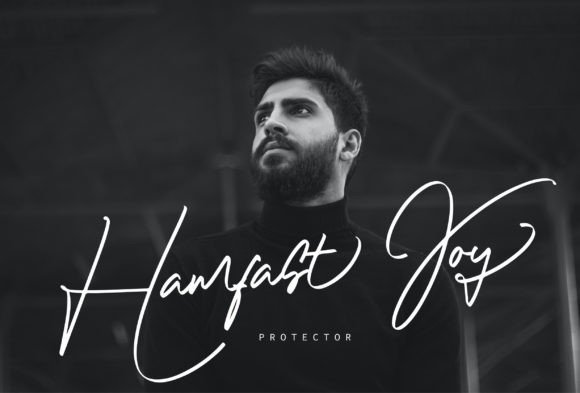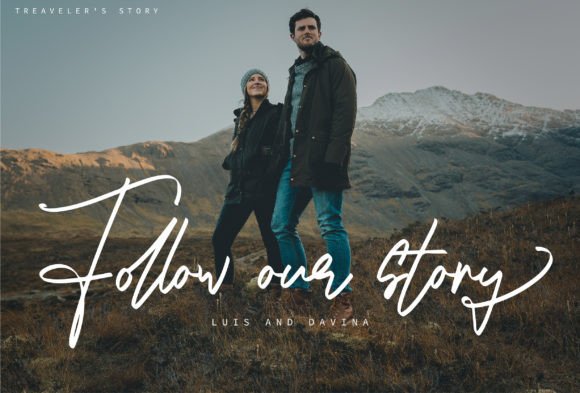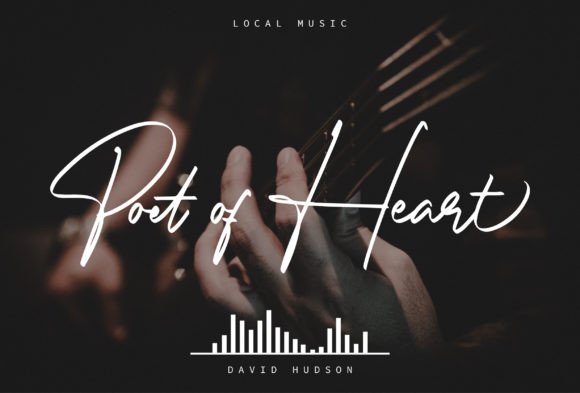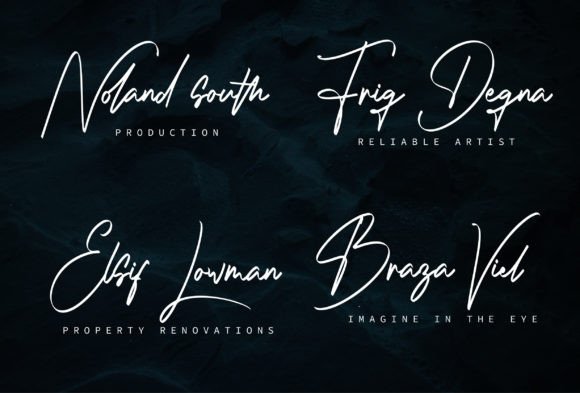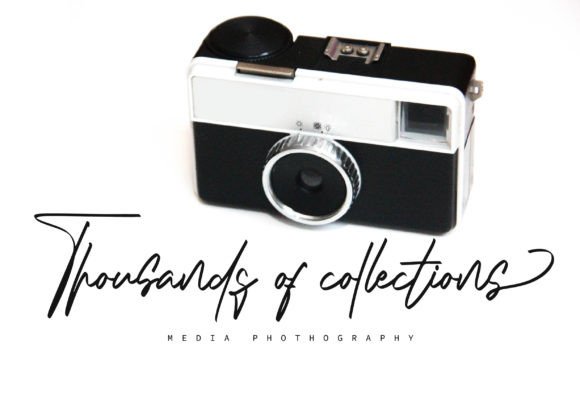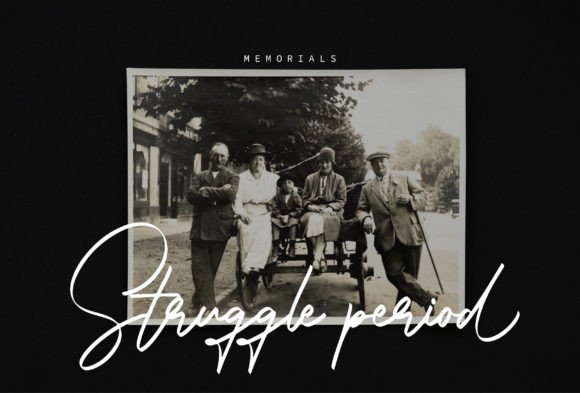
Introduction to Pictures Signature Font
Have you ever been scrolling through a beautifully designed magazine or a website, and suddenly, you’re stopped by a unique and captivating logo or title that makes you pause and take a closer look? That’s the power of a well-designed font, and today, we’re going to talk about one that’s sure to leave a lasting impression – the Pictures Signature Font.
This elegant and exclusive font is a treasure trove for designers looking to add a personal touch to their creative projects. With its steep, curved strokes and interconnected letters, the Pictures Signature Font is the perfect choice for brand names, name logos, magazines, posters, and other digital media that require a high-quality, transparent background design. Whether you’re working on a commercial project or a personal one, this font is sure to elevate your design to the next level.
And the best part? The Pictures Signature Font is PUA encoded, making it easy to access all glyphs and swashes effortlessly. So, what are you waiting for? Dive into the world of high-quality design with the Pictures Signature Font and take your creative projects to new heights!
Honest Review: Pictures Signature Font
I recently came across the Pictures Signature Font and was excited to give it a try. As a designer, I’m always on the lookout for high-quality design resources to elevate my creative projects.
- What works well: ✨ The font is beautifully crafted with a unique, hand-drawn feel that adds a touch of personality to any design. It’s perfect for logos, branding, and other creative projects where a signature look is required.
However, there are a few limitations to consider: ⚠️ The font is not suitable for large blocks of text, as the unique character set can make it difficult to read. Additionally, the font may not be compatible with all software and platforms.
Overall, I’m impressed with the Pictures Signature Font and would recommend it to designers looking for a high-quality, creative font for their projects.
Common Use Cases for Pictures Signature Font
The Pictures Signature Font is a versatile design resource that can be used in a variety of creative projects, including business cards, logos, and social media graphics. It’s also a great option for personal projects, such as invitations and certificates.
Is the Pictures Signature Font high-quality and suitable for professional designs?
Yes, the Pictures Signature Font is a high-quality design resource, carefully crafted to meet the needs of professional designers. With its clean and elegant design, it’s perfect for a wide range of creative projects, from business cards to website headers. The font is also available in high-resolution formats, ensuring that your designs look great on any device or screen.